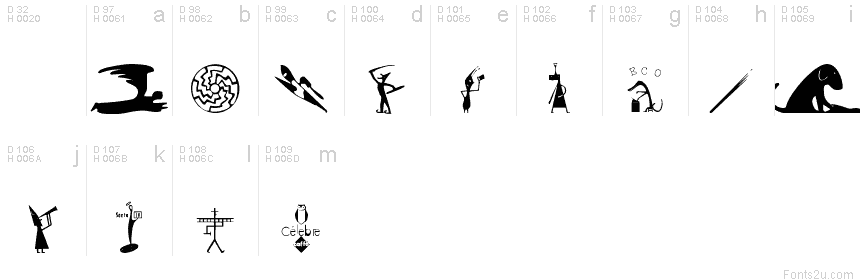
Guto Lacaz PW
Guto Lacaz PW font by Paulo W is a free dingbat typeface that turns Guto Lacaz’s quirky artworks into crisp, ink-black pictograms. Each glyph feels like a tiny poster: bold silhouettes of ladders, chairs, lamps, machines, and abstract contraptions with a witty, almost cartoon-engineering vibe. The icons sit on a sturdy grid, so they drop cleanly into layouts and hold up even when enlarged for bold, graphic moments.
Using Guto Lacaz PW, you can build punchy zines, gallery flyers, posters, packaging, wayfinding experiments, or motion graphics that need a hit of conceptual art energy. This free font works beautifully as a visual accent next to a plain grotesque or geometric sans set in smaller text sizes. Try using single icons as logos or repeat them as patterns to create playful, art-driven branding.